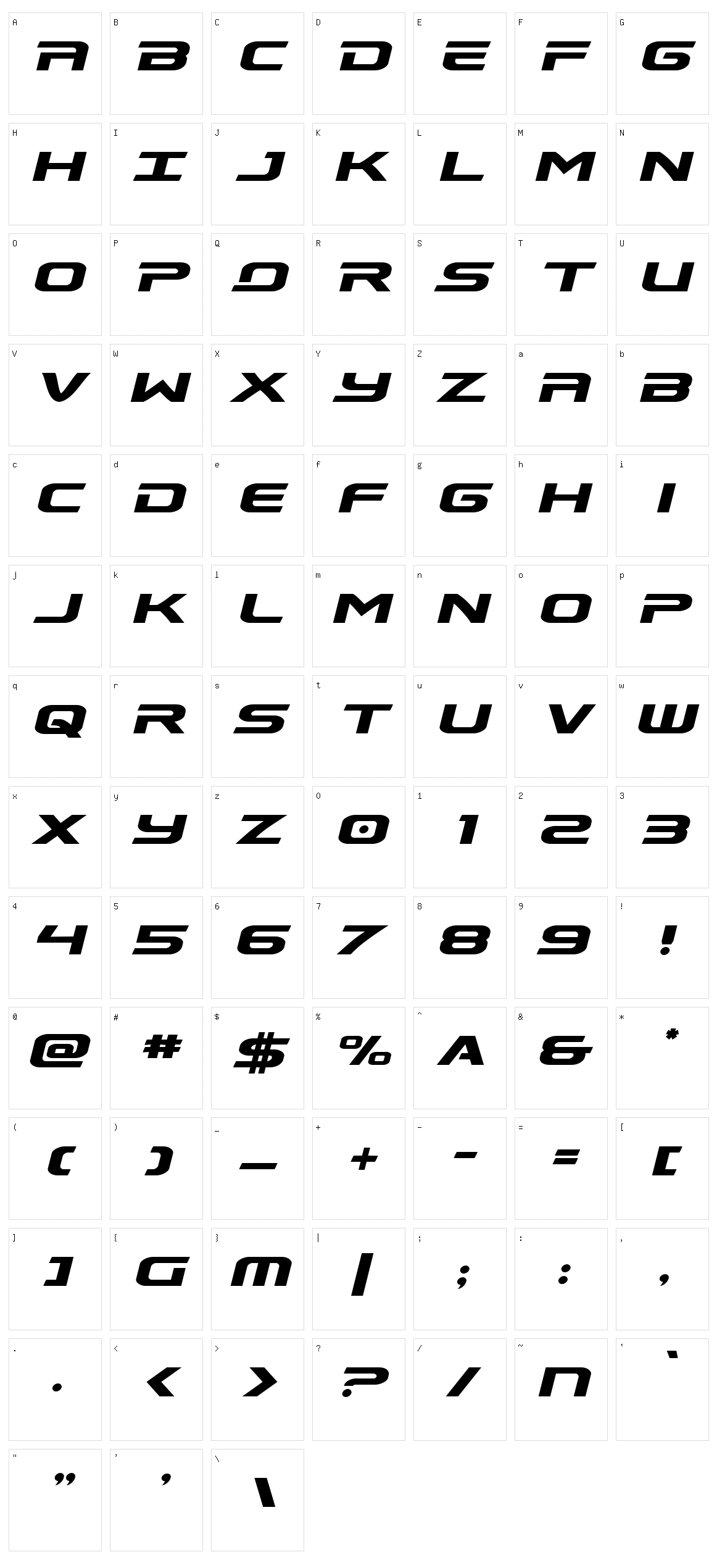
Drius
This font comes with the following 17 versions: Regular, Straight, Expanded, Expanded Straight, Condensed, Condensed Straight, 3D, 3D Straight, Laser, Laser Straight, Halftone, Halftone Straight, Graident, Gradient Straight, Italic, Semi-Straight and Leftalic.